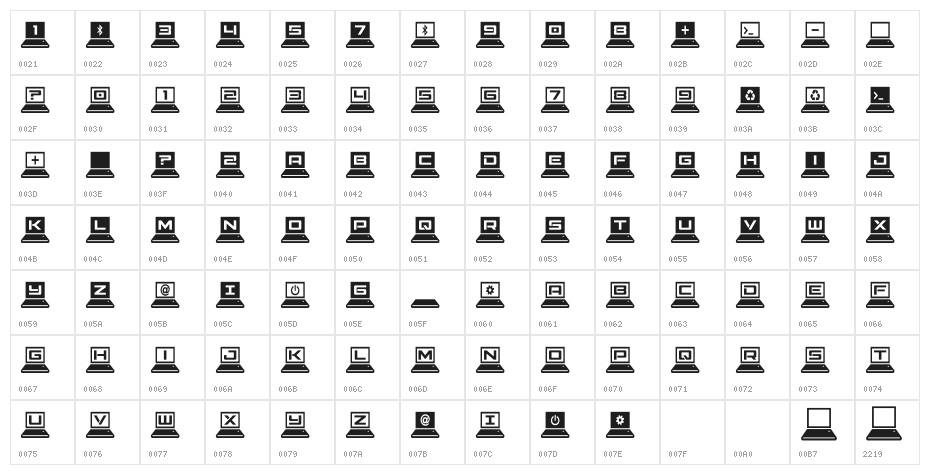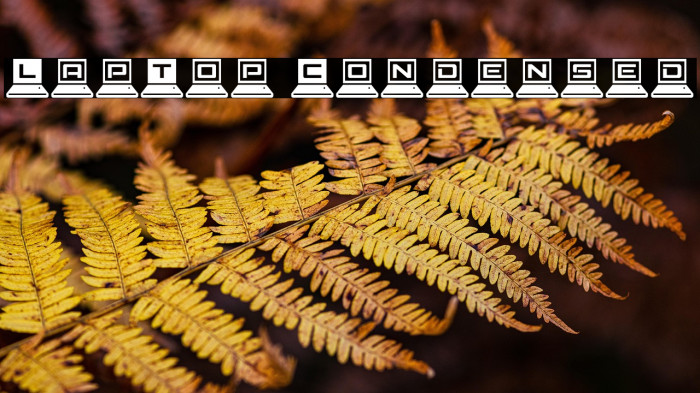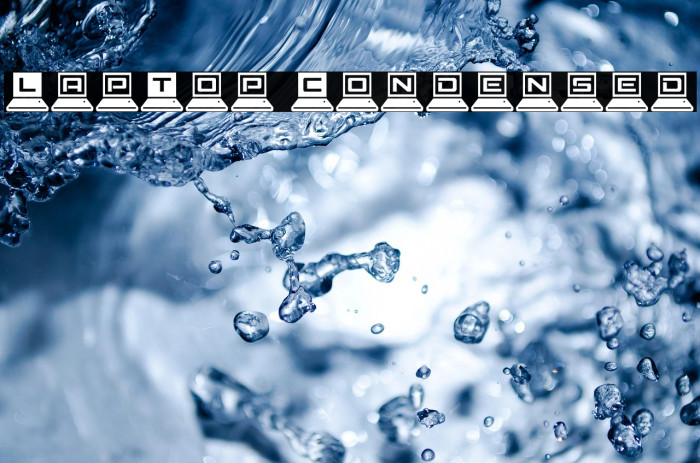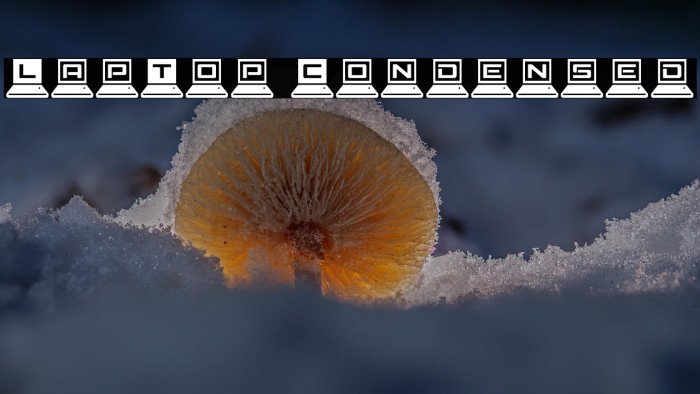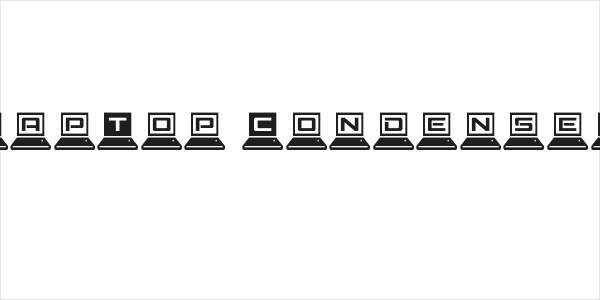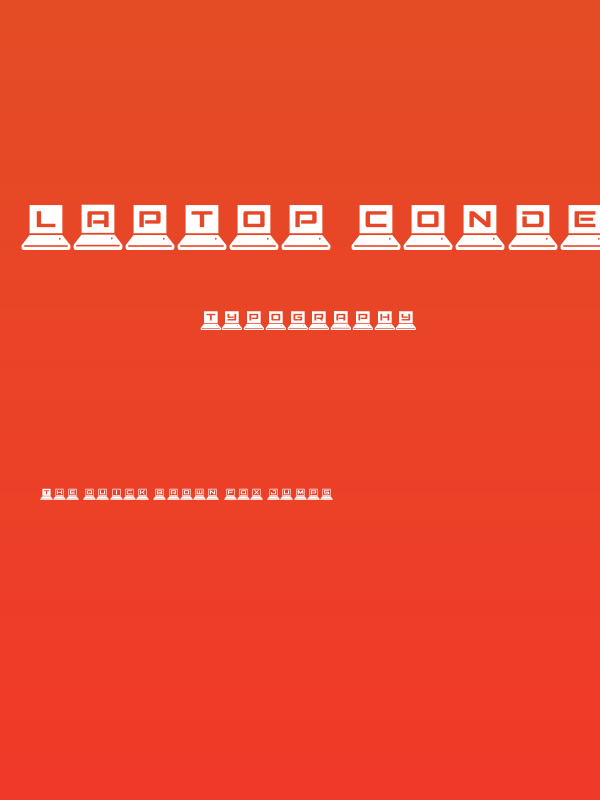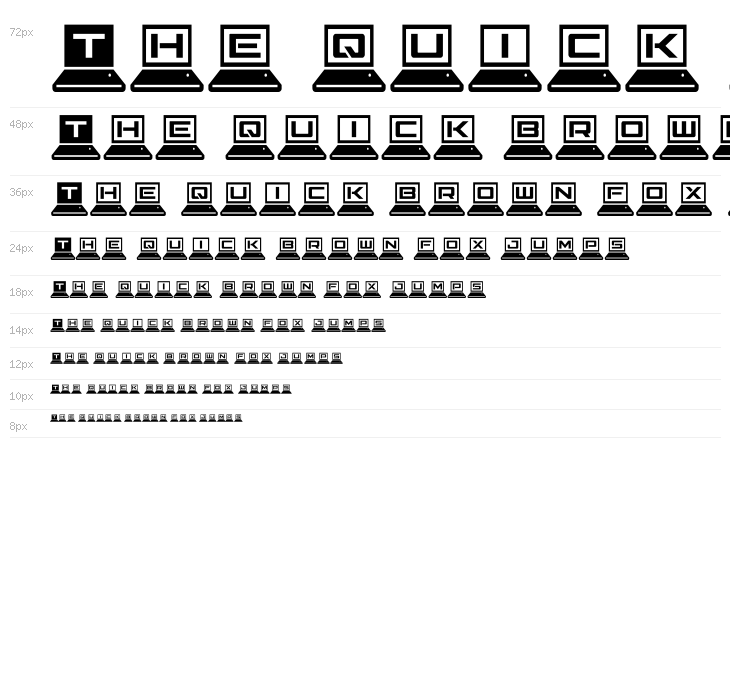
LapTop Condensed Font
LapTop Condensed Description
This font features a unique design where each character is enclosed within a stylized laptop icon, giving it a distinct technological and modern feel. The characters are bold and geometric, with a consistent width and height, creating a uniform appearance. The uppercase letters are prominently displayed, while the numbers and special characters maintain the same enclosed style. The overall look is reminiscent of digital or tech-themed aesthetics, making it suitable for projects that require a futuristic or computer-related theme. The font's design ensures high readability despite its decorative elements, making it versatile for various applications.
| Overall Style | Modern, Tech |
| Proposed Projects | Ideal for tech-related branding, digital media projects, educational materials, and futuristic designs. |